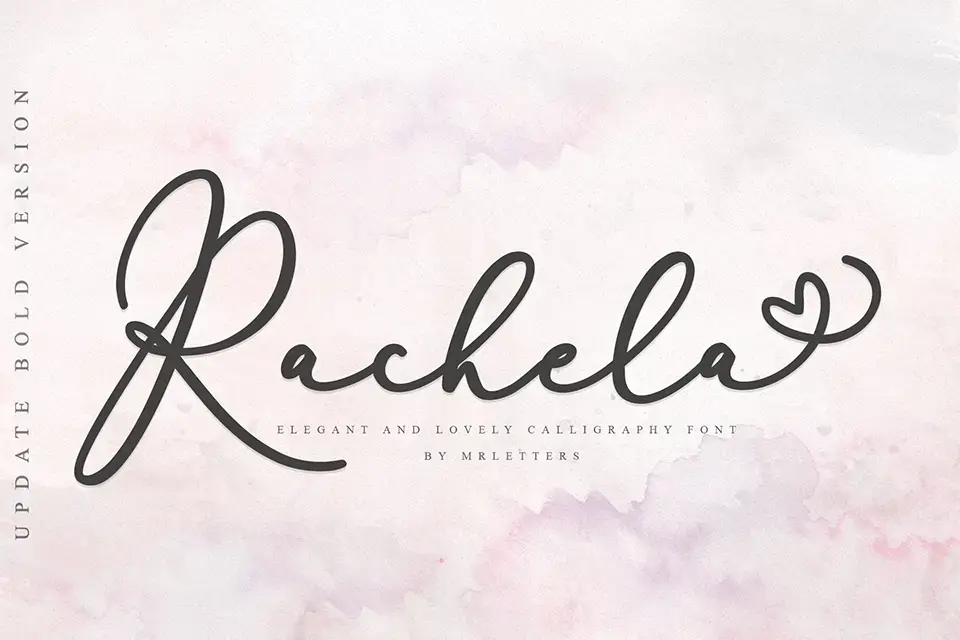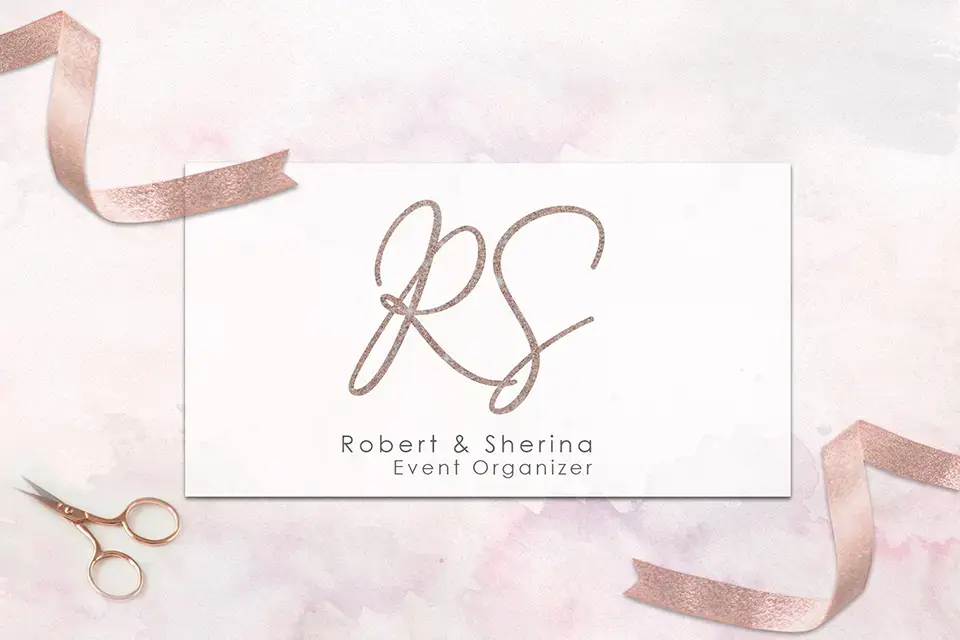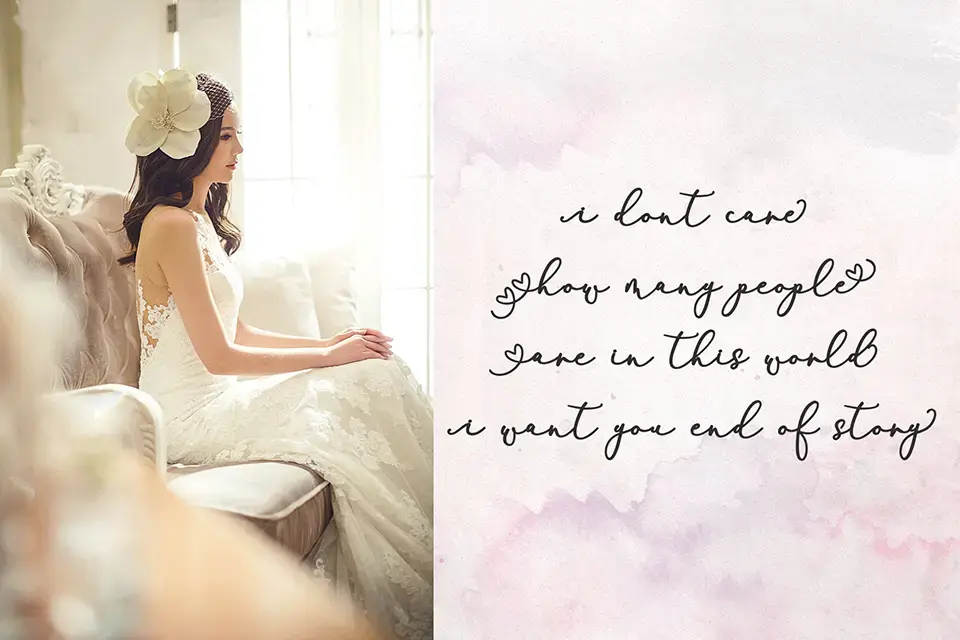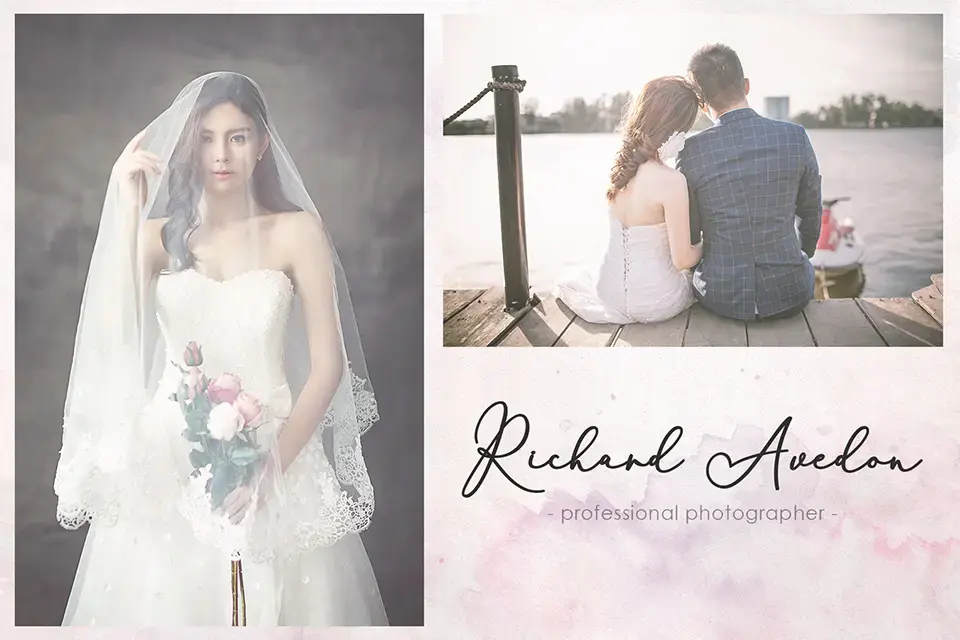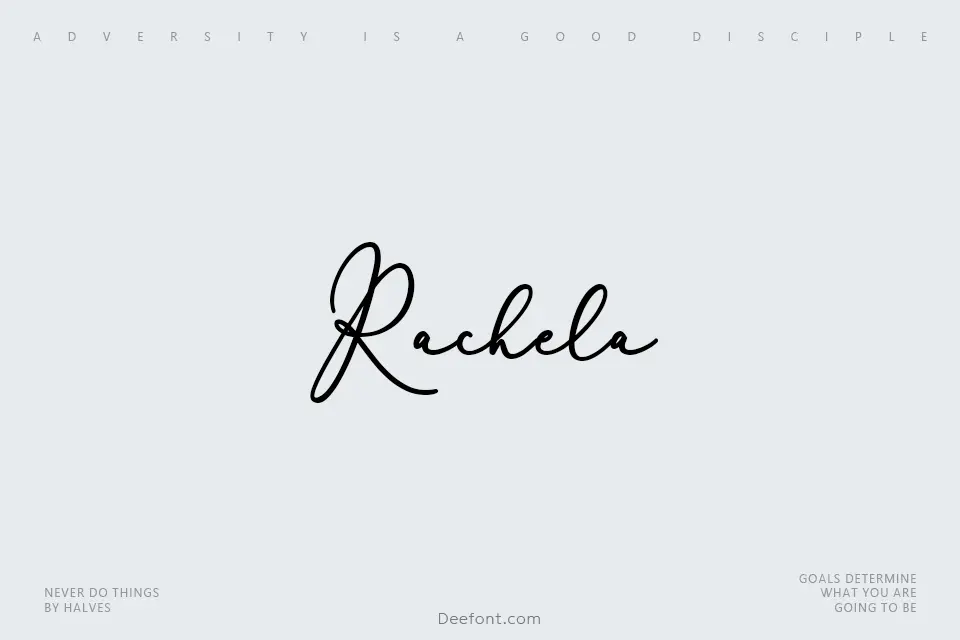
Rachela Font
Rachela is a sophisticated handwritten script typeface that combines graceful, flowing strokes with contemporary elegance. Designed with fluid curves and refined letterforms, the font delivers an artistic yet refined aesthetic suitable for luxury branding, wedding invitations, editorial layouts, social media graphics, and decorative posters. Its expressive, organic style brings personality and warmth to headlines, logos, packaging, and greeting card designs while maintaining excellent readability in larger display sizes.